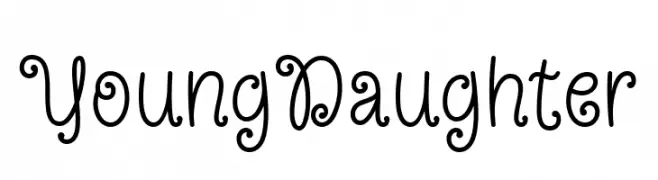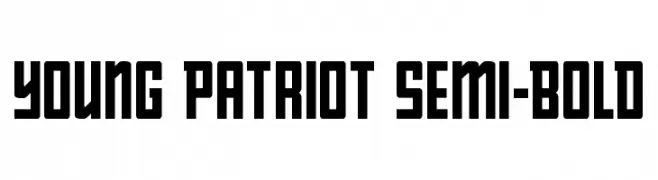
A hand-drawn, ink-like font with bold, dynamic strokes and an artistic flair.
A lively, expressive handwritten font with fluid strokes and a casual elegance.
A sleek, modern font with thin, geometric lines and a minimalistic design.
A modern, minimalist font with thin, clean lines and a geometric influence.
A modern, geometric font with clean lines and a minimalist style.
A modern, geometric font with clean, rounded edges and consistent stroke width.
A quirky, illustrative font with dancing, mouse-eared characters.
An ornate and decorative typeface with intricate swirls and lattice-like patterns.
A bold, distressed font with outlined characters and a grungy texture.
A bold, angular font with sharp, jagged edges and a dynamic, aggressive style.
A pixelated, blocky font with a retro digital style.
A geometric, angular font with a futuristic and abstract design.
A bold, geometric font with sharp angles and a futuristic look.
A bold, hand-painted style font with a dynamic and rough texture.
A bold, expressive handwritten font with thick, uneven strokes and a playful style.
A bold, high-contrast serif font with a modern vintage flair.
A bold, distressed font with a rugged, eroded appearance.
An artistic and flowing cursive font with elegant, continuous lines.
A fluid and artistic font with interconnected strokes and a modern, decorative style.
A playful, artistic handwritten font with bold, expressive strokes.
A playful and elegant handwritten font with fluid strokes.
A bold, outlined font with a playful, hand-drawn style.
Bold, outlined font with a playful, blocky style.
Decorative font with musical symbols and tracing outlines.
A bold, textured script font with a distressed, vintage look.
A bold, distressed font with a rugged, grunge aesthetic.
A bold, distressed font with a vintage, textured appearance.
A playful, casual handwritten font with smooth, flowing lines.